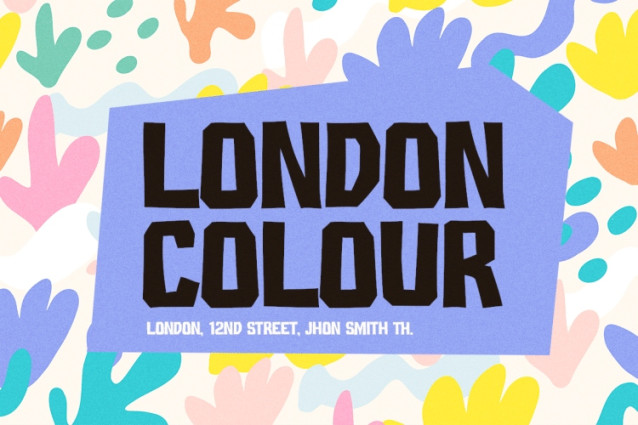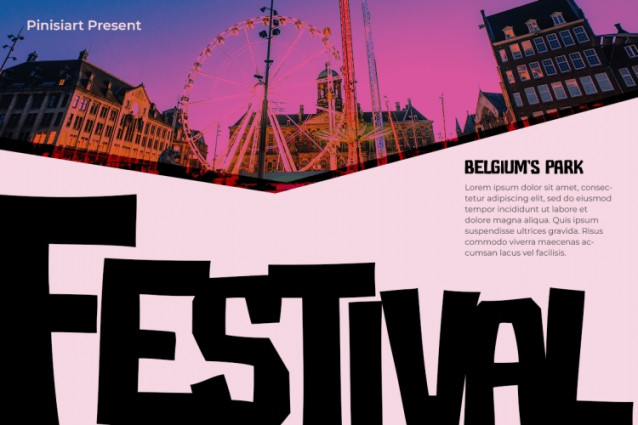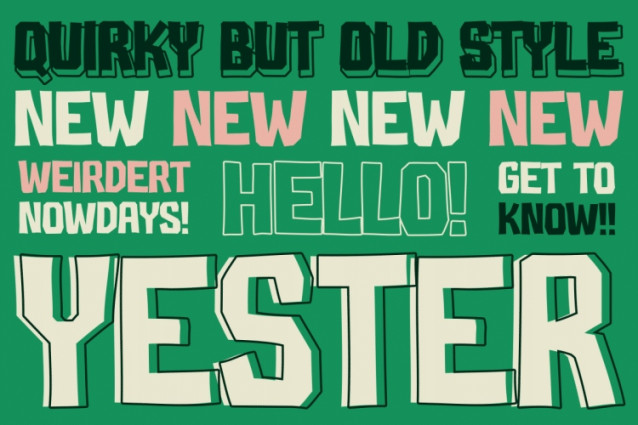
Retro Font Yester seamlessly captures the nostalgia of mid-20th-century typography while blending it with a modern, playful twist. The font features bold, quirky letterforms with varying stroke thicknesses, which create a dynamic and energetic personality. Moreover, its uneven outlines add a unique retro style while maintaining an approachable vibe. As a result, it stands out for designs that demand both charm and impact.
In addition, the uppercase characters offer great versatility, making the font perfect for bold headlines, logos, or promotional materials. The layered effects included in the design further enhance its visual appeal by adding depth and a playful touch. Whether used in print or digital formats, Retro Font Yester offers familiarity with its vintage essence, yet feels fresh and relevant for modern-day projects. Furthermore, its adaptability to different color schemes and creative compositions ensures it remains legible and striking. Ultimately, this font makes a bold statement by combining classic charm with a lively, contemporary edge.